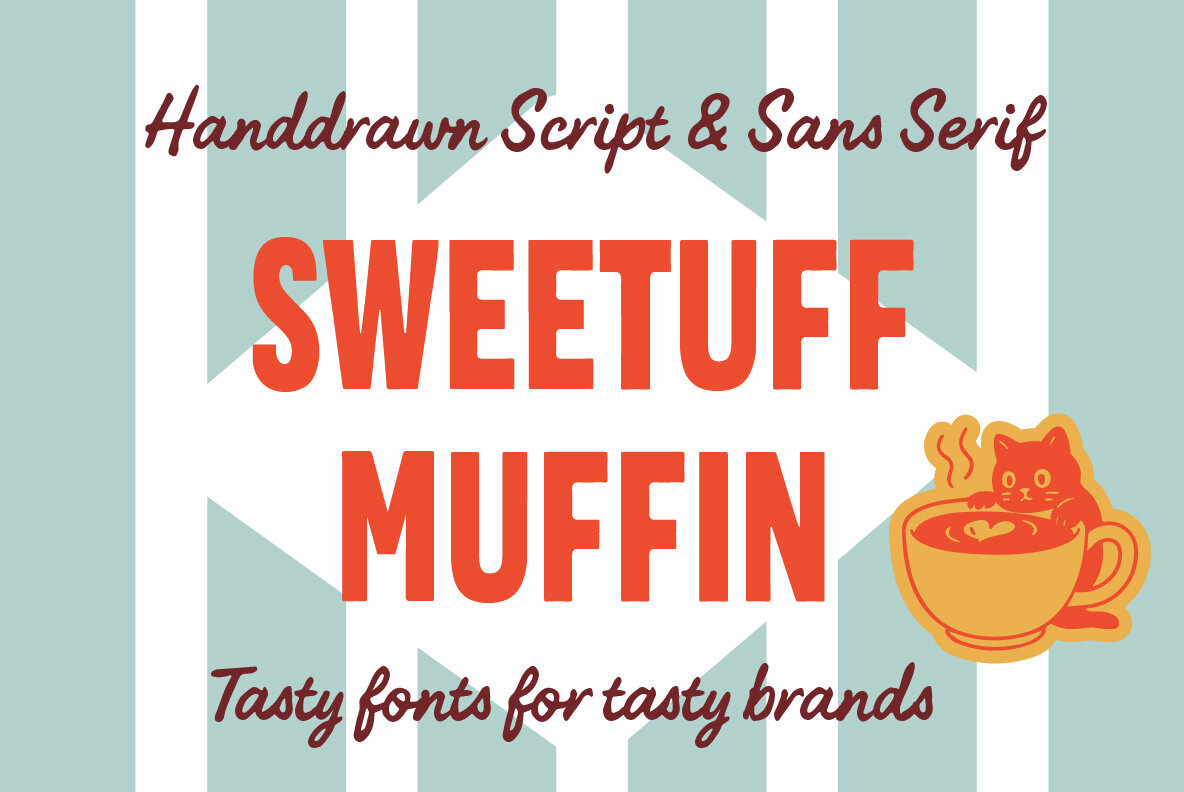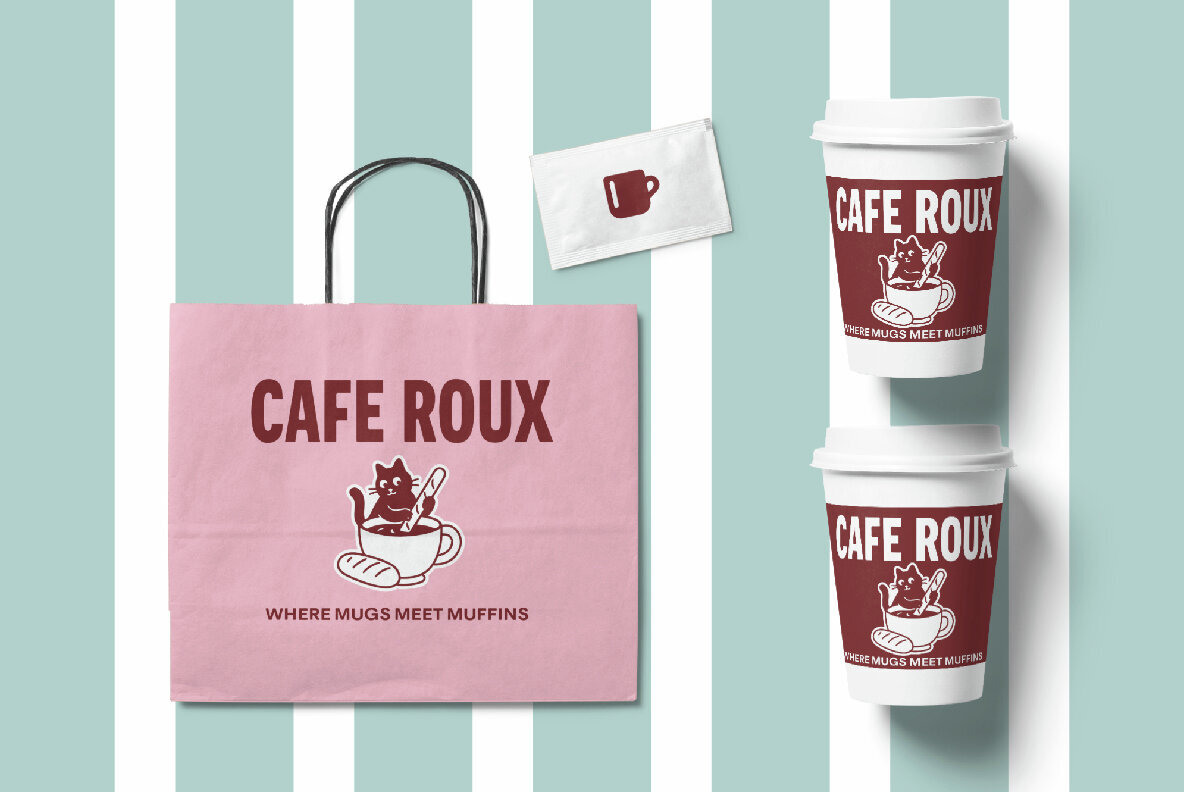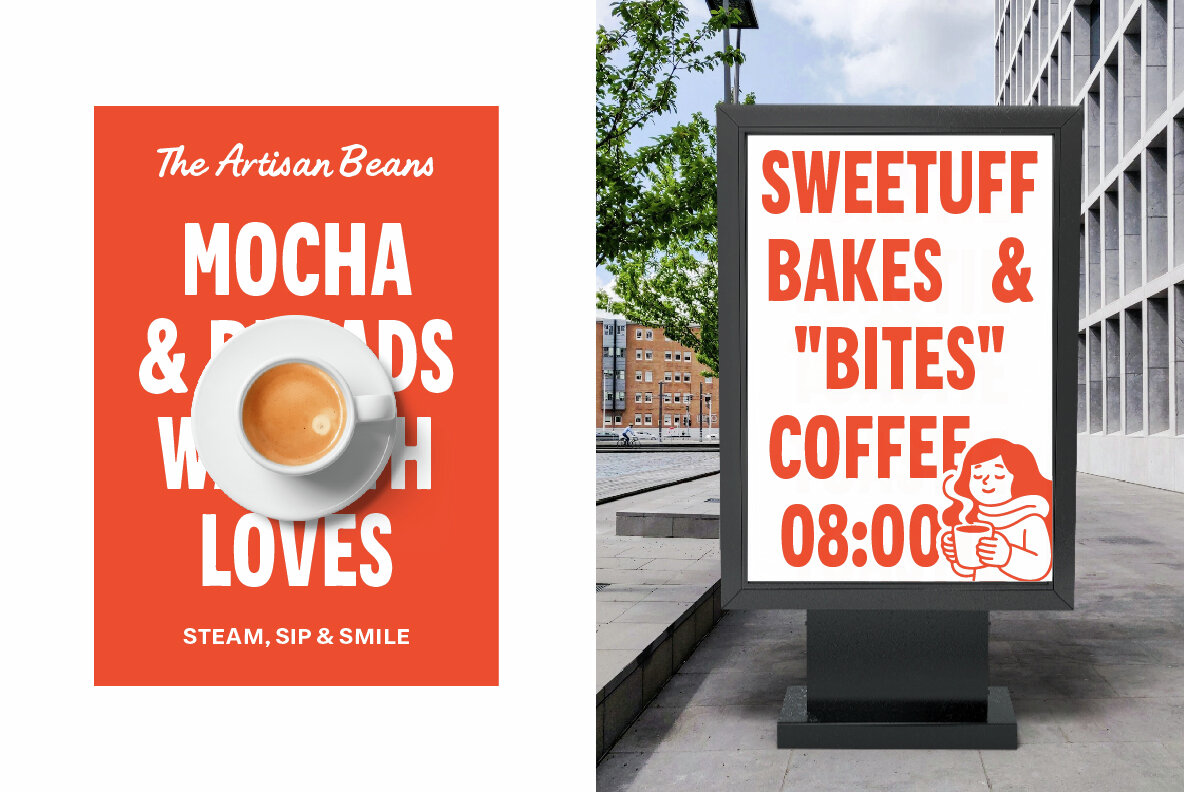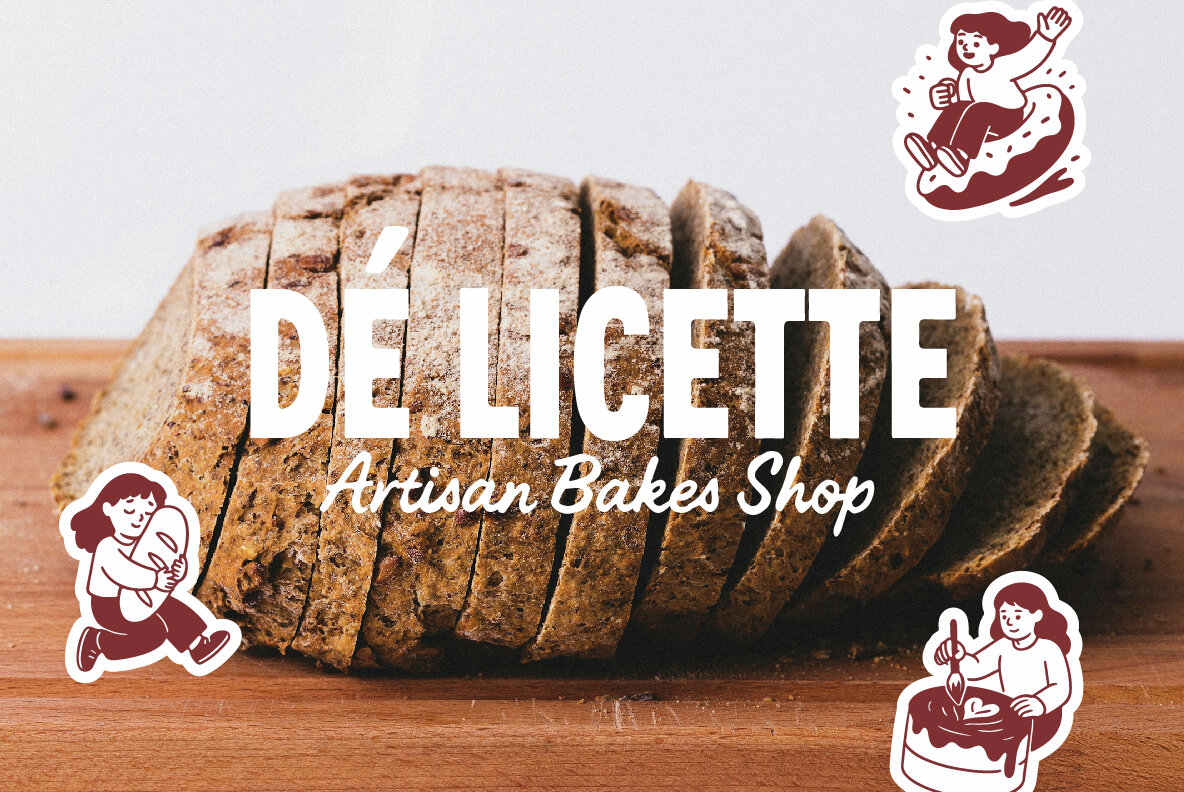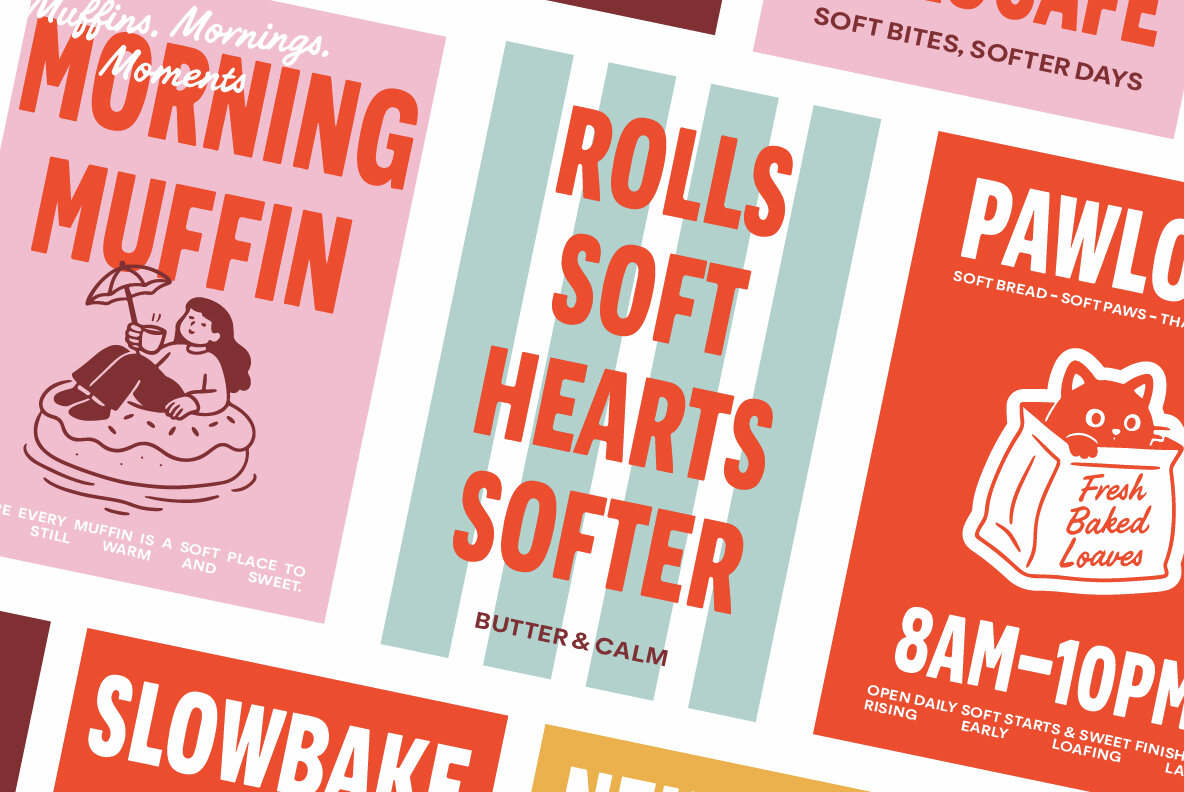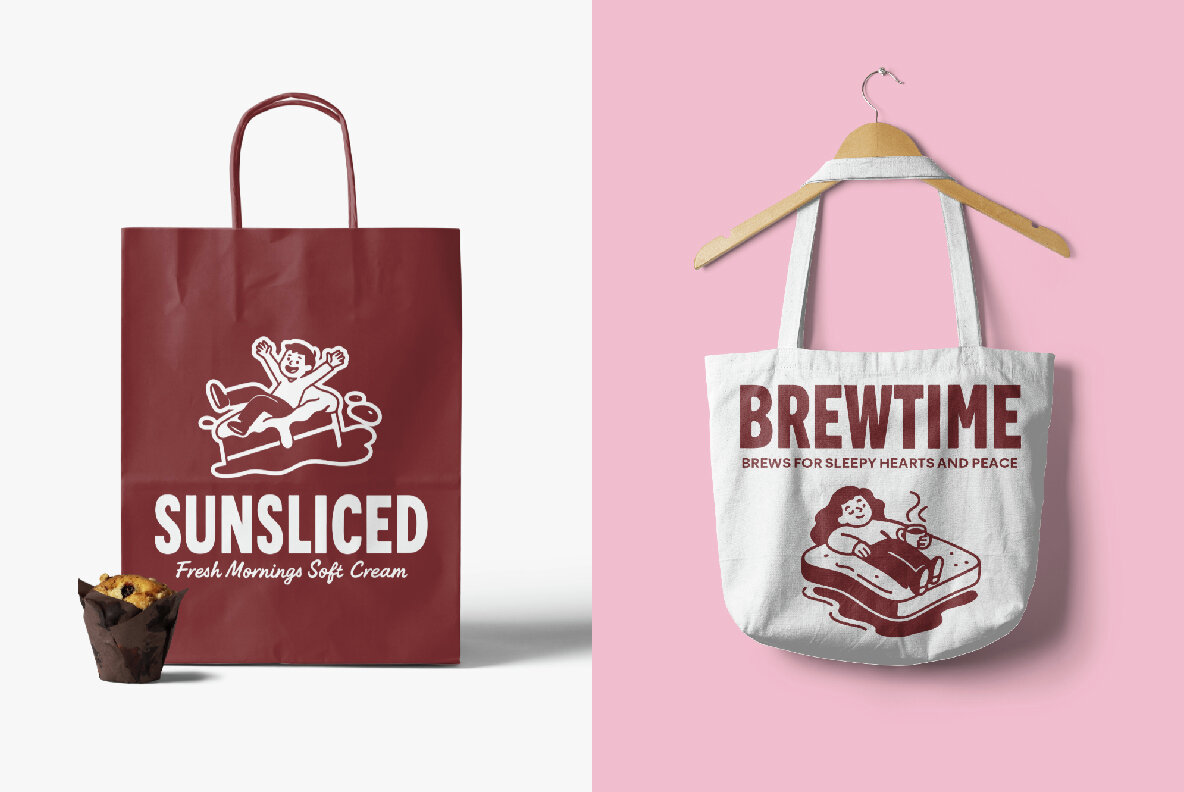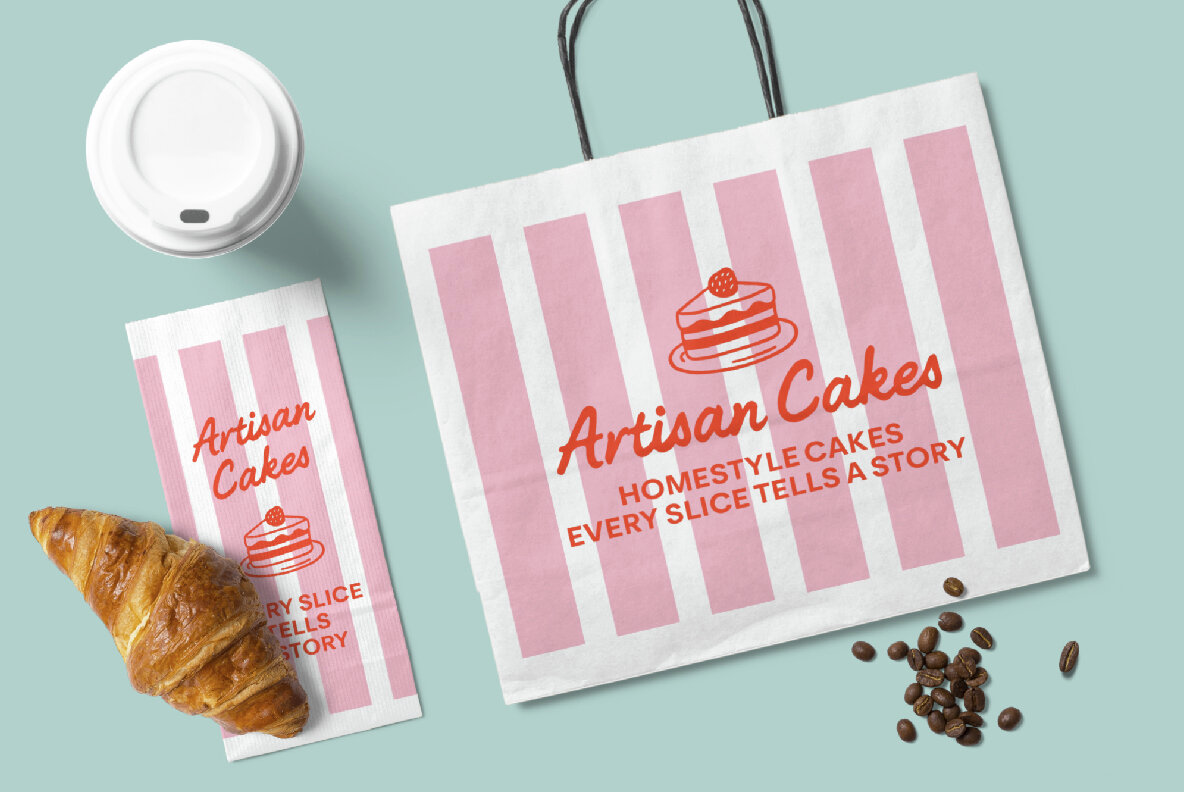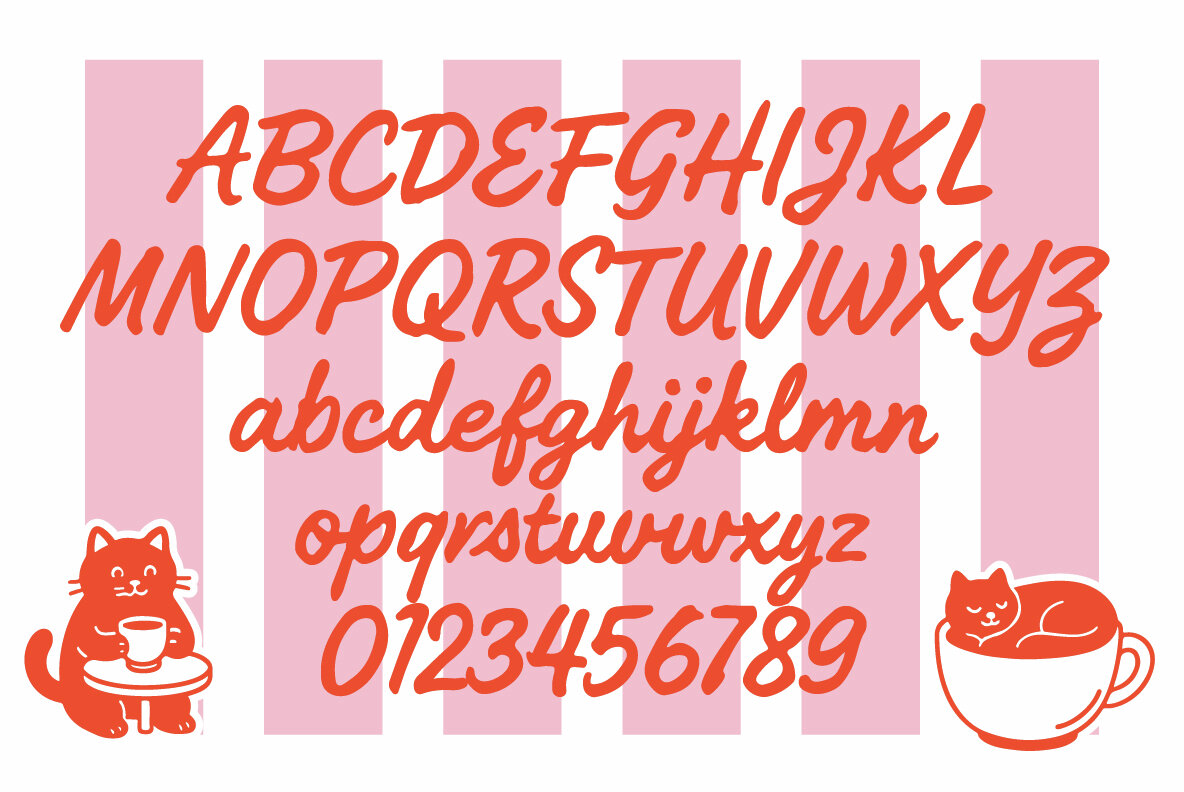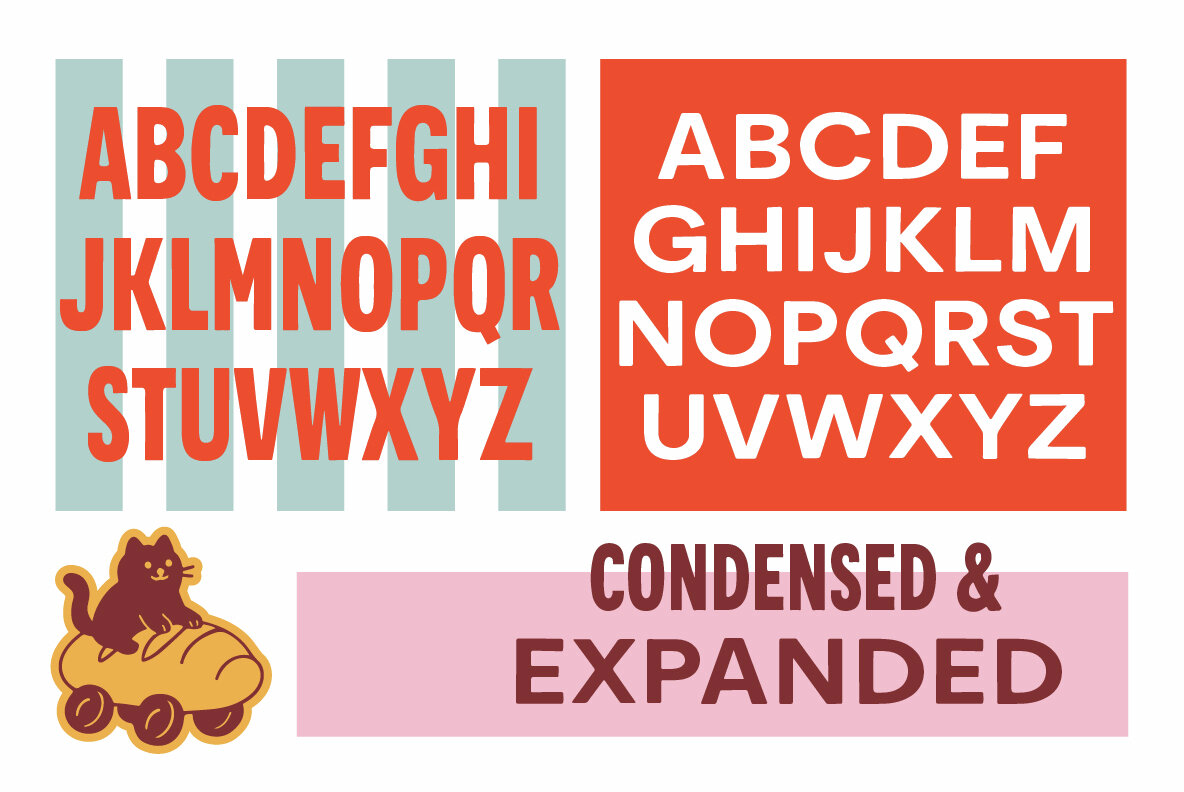
Sweetuff Muffin Font
Sweetuff Muffin is a delightful font duo that exudes warmth and whimsy, perfect for cozy brands, handmade packaging, and delectable design projects. It features a playful script paired with two versatile sans styles—Condensed and Expanded—bringing charm and clarity to any layout. Whether adorning coffee cups or enhancing cake boxes, creating logos, or crafting storefront designs, Sweetuff Muffin adds a soft and tasty touch to your typography.Sweetuff Muffin: A Font Duo for Delightful Designs